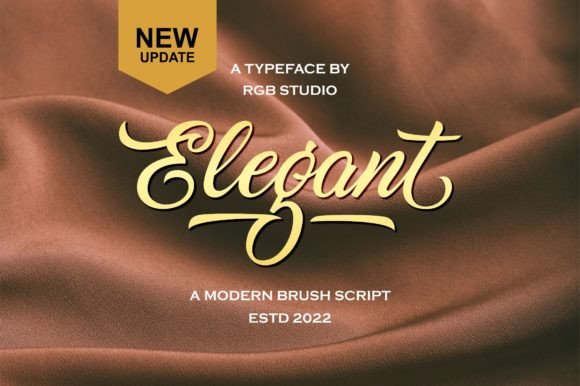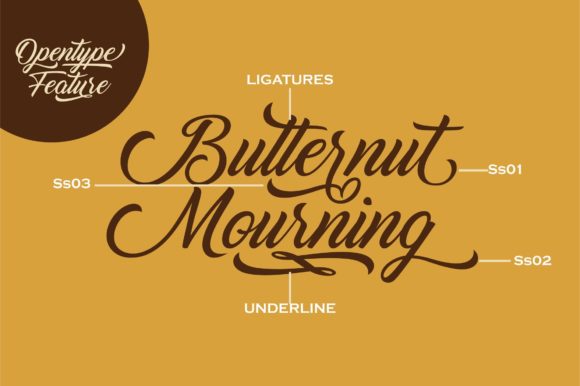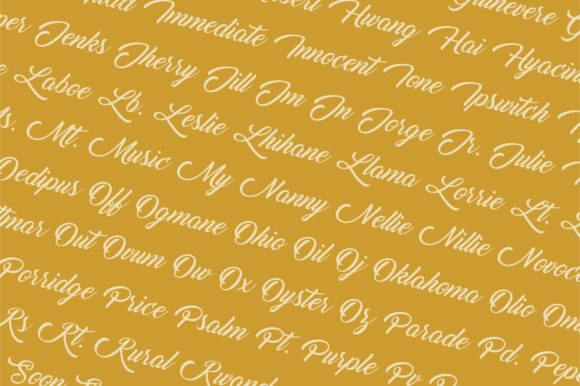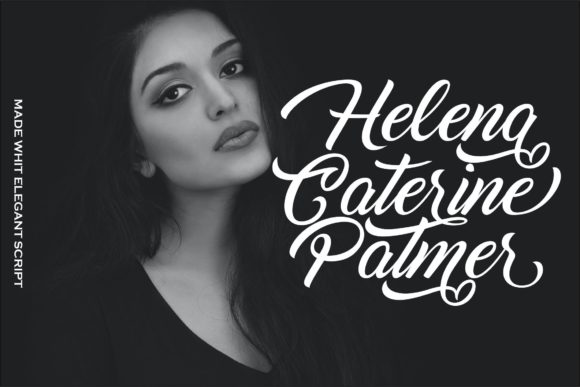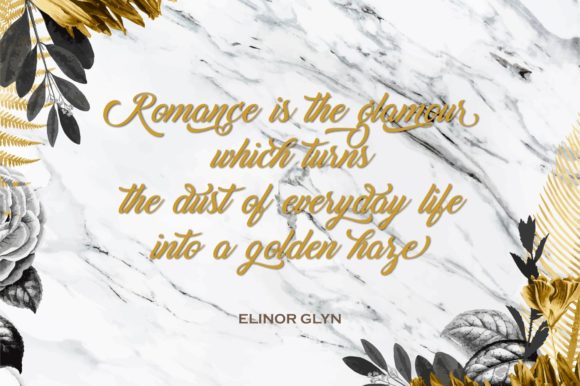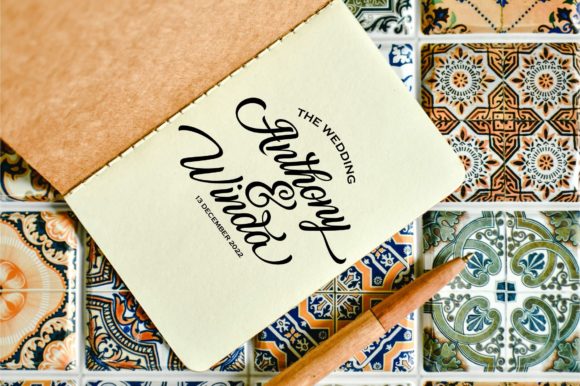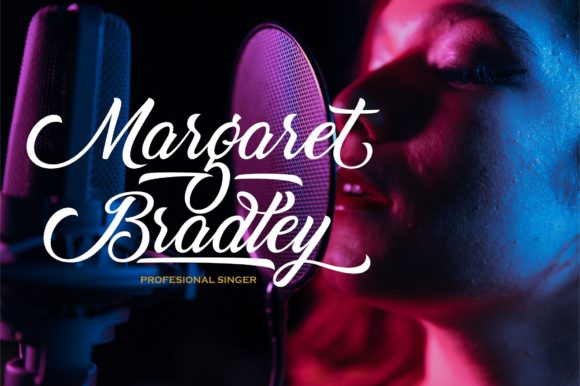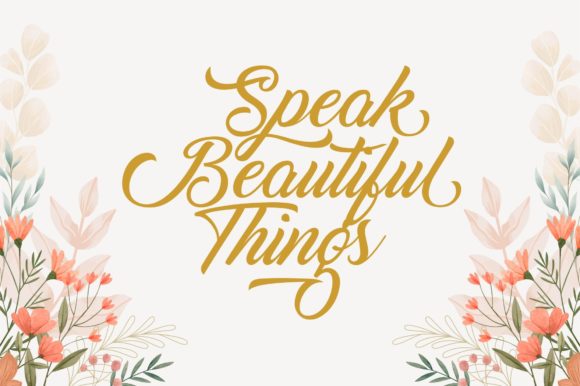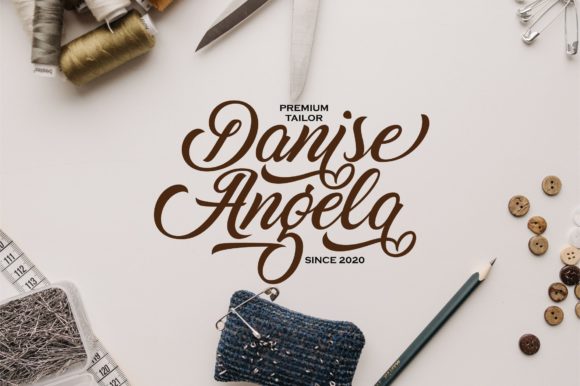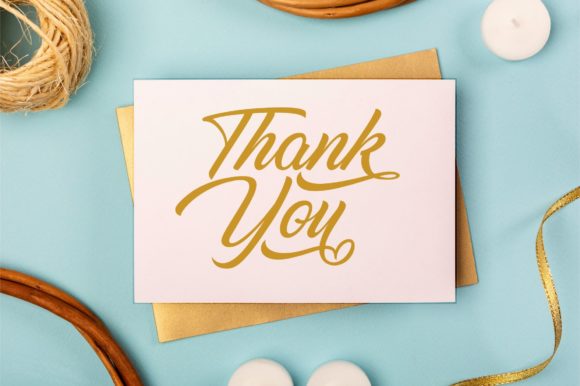
Elegant Font
About Elegant Font
Elegant is a cute and casual handwritten font with an incredibly friendly feel. This font is PUA encoded which means you can access all of the glyphs and swashes with ease! Whether you’re looking for fonts for Instagram or calligraphy scripts for DIY projects, Elegant will turn any creative idea into a true piece of art!